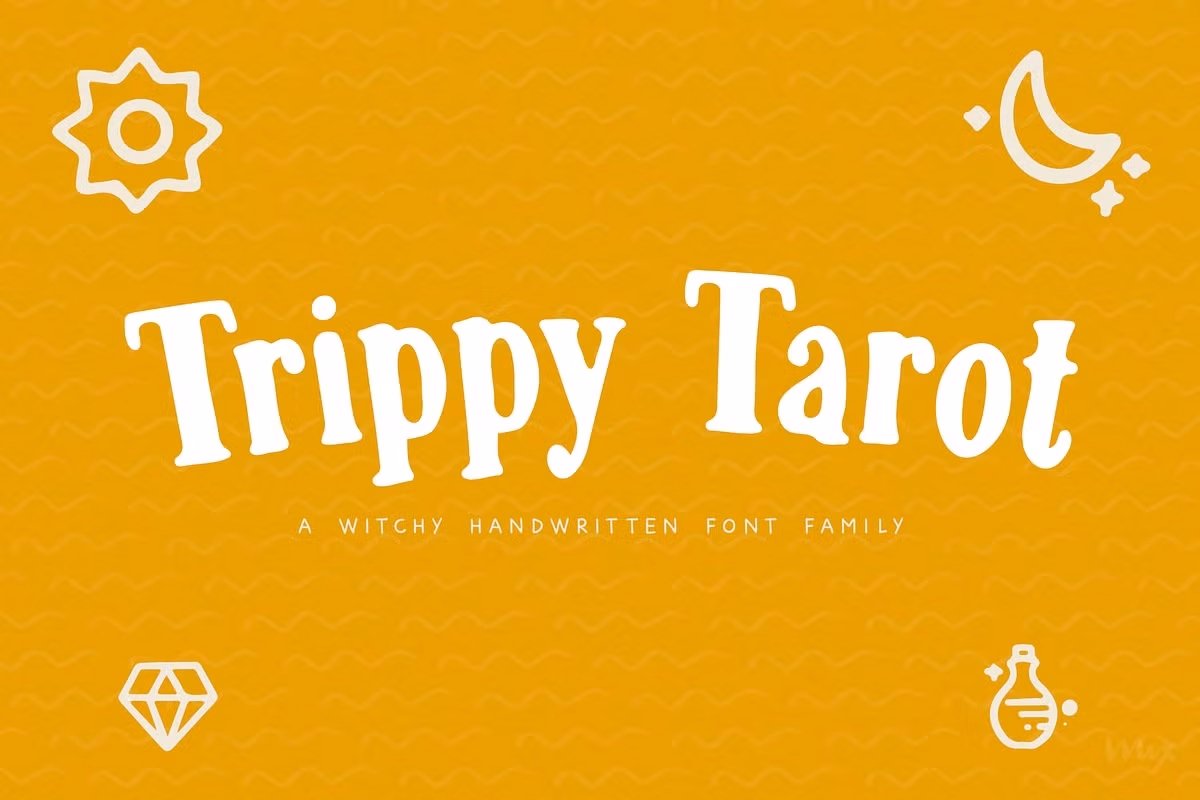
Trippy Tarot Font Free Download is a bold and whimsical typeface that fuses psychedelic style with mystical energy. With its warped letterforms, playful curves, and enchanting vibes, this font is perfect for tarot card designs, spiritual branding, music posters, boho merchandise, and magical social media content.
Its groovy, retro-meets-occult aesthetic creates a unique atmosphere—ideal for projects that aim to feel otherworldly, artistic, or just plain fun. Whether you’re channeling vintage 70s vibes or designing for a mystical boutique, Trippy Tarot brings charm and character.
Designers love Trippy Tarot for its bold personality, spellbinding visuals, and standout presence across digital and print. Want to add a little magic and mayhem to your typography? Download Trippy Tarot Font Free Download and let your creativity get cosmic.